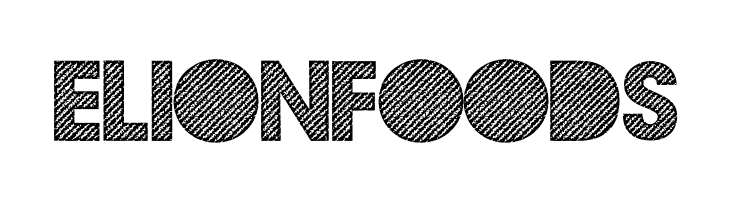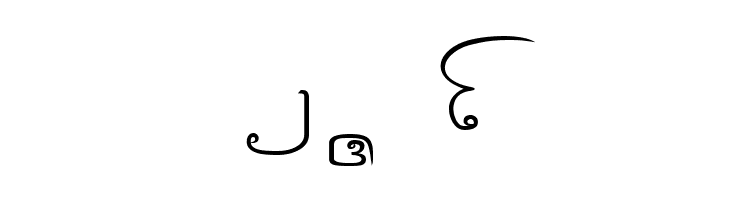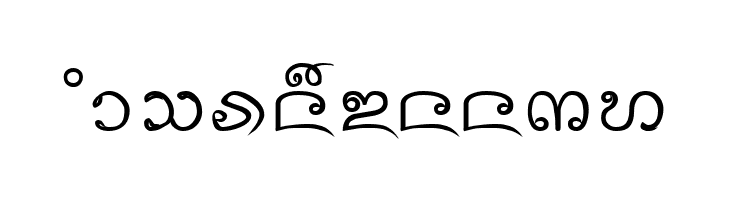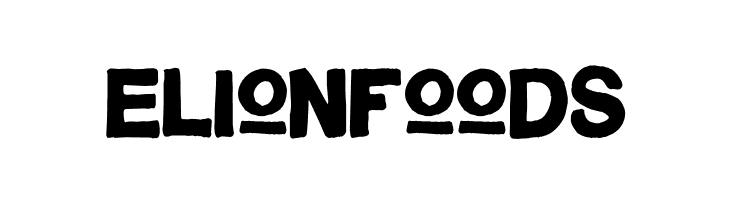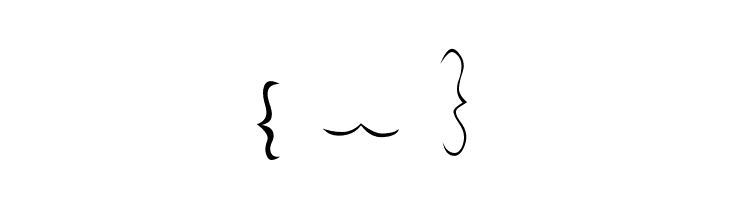
An elegant script font with ornate uppercase letters and smooth, flowing lowercase characters.
A classic serif font with balanced proportions and medium contrast.
Ornamental geometric display font with intricate patterns.
Bold, geometric font with diagonal hatching for a modern, textured look.
A playful, casual handwritten font with a relaxed, flowing style.
An ornate, decorative font with elaborate swashes and flourishes.
Ornate, decorative script with dense overlapping strokes.
A distressed, grungy font with a chaotic and textured appearance.
A bold, hand-drawn font with a dynamic and artistic style.
A playful, casual handwritten font with smooth, flowing lines.
A playful, thin handwritten font with a casual and dynamic style.
A playful, thin handwritten font with a casual and friendly style.
Ornamental symbol font with diverse decorative motifs.
A decorative symbol set focused on diverse bracket and star designs.
A highly expressive, hand-drawn font with erratic and playful letterforms.
A bold, decorative font with intricate, hand-drawn patterns inside each character.
A whimsical, hand-drawn font with elongated strokes and playful curves.
A bold, handwritten font with an energetic and playful style.
A bold, italicized handwritten font with dynamic strokes and a playful style.